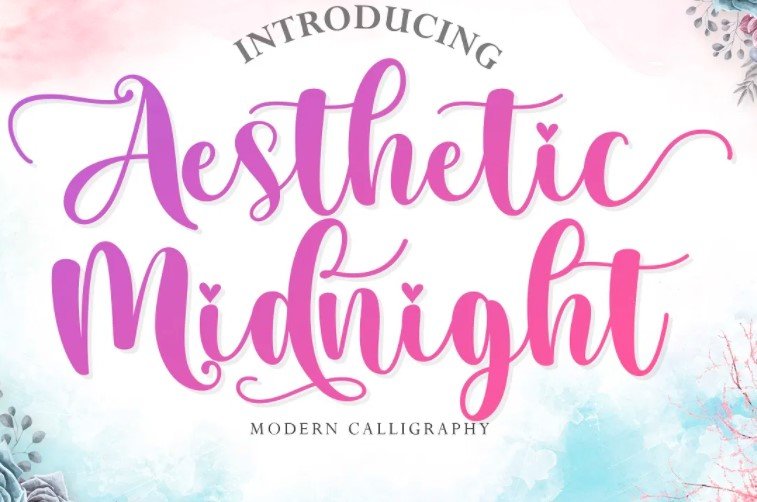
Aesthetic Midnight Font Free Download
Introducing the high-quality typeface with you that will give your work a new and enhanced look that can easily attract any type of audience. It is Aesthetic Midnight Font which is a great and cool typeface to creates amazing rich designs for free.
The typeface offering baseline, dancing characters, brilliant layouts, and amazing glyphs which combinedly generate unique and smart content for your work.
You can design anything that you want just with this amazing typeface, also it supports more than hundreds of languages to create designs in any language that graphic designers want.
View Of Aesthetic Midnight Font
This is a top-quality and attractive typeface that comes along with rich styles and features that will look great in all your works. You can download and use it with the combination of ccean font.
Also, if you want to know where you can use it, you can utilize it in making and create large unique posts, banners, calligraphic designs, all types of artwork can be built with this Aesthetic typeface for free. It is great to use with trueno sans font.
NameAesthetic Midnight Font
Style Script
Designer Creative Fabrica